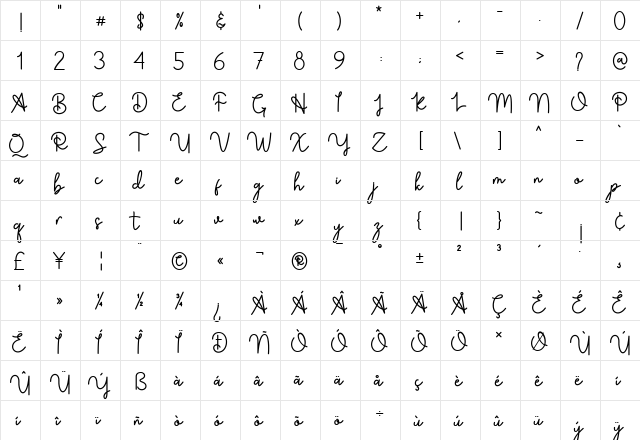
Sahur Bosku Script
| Style | Script |
| Foundry | CBRTEXT Studio |
| Designer | CBRTEXT Studio |
Design Context for Sahur Bosku Typeface
Sahur Bosku brings a calligraphic fluidity to the page — its connecting strokes and expressive curves give it an unmistakably human quality.